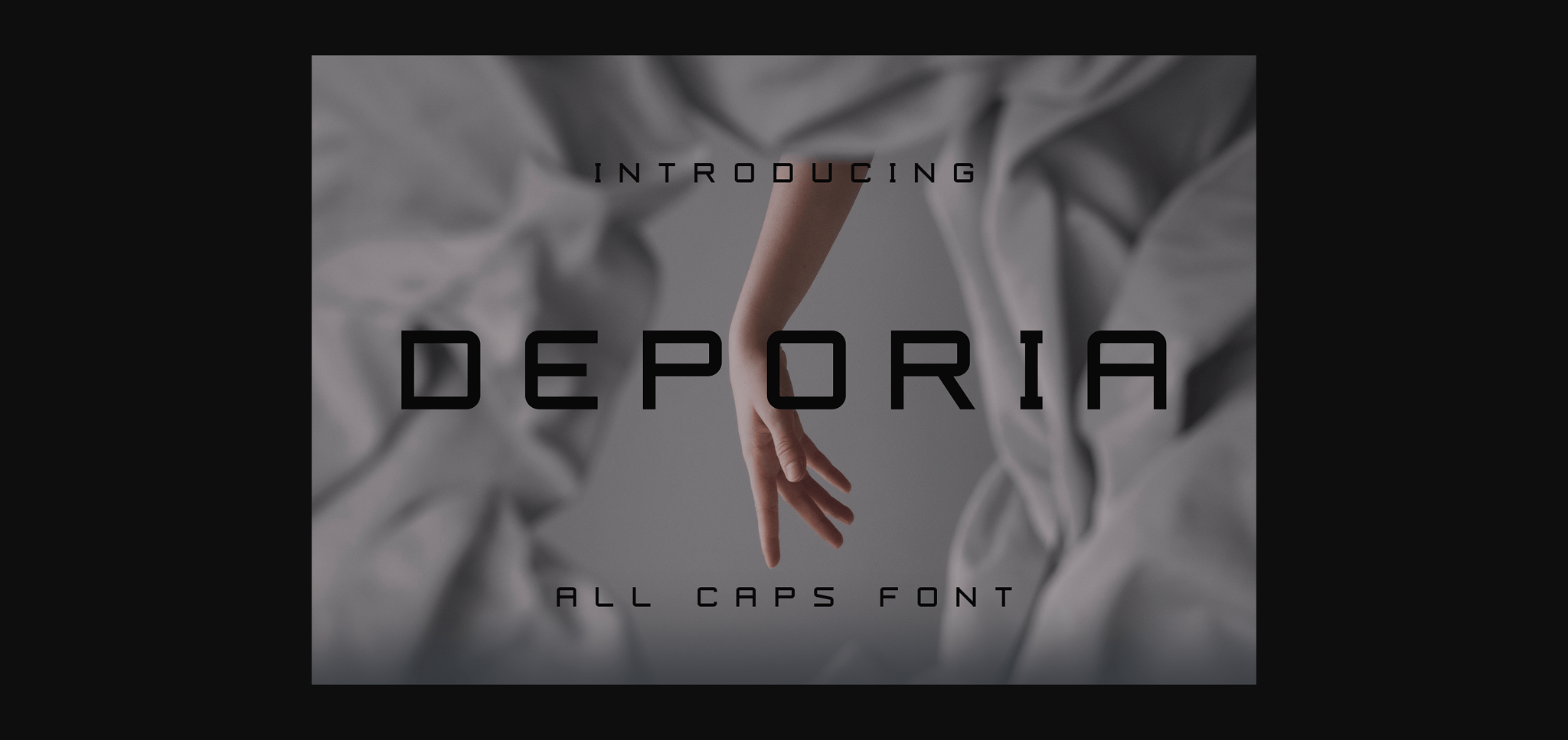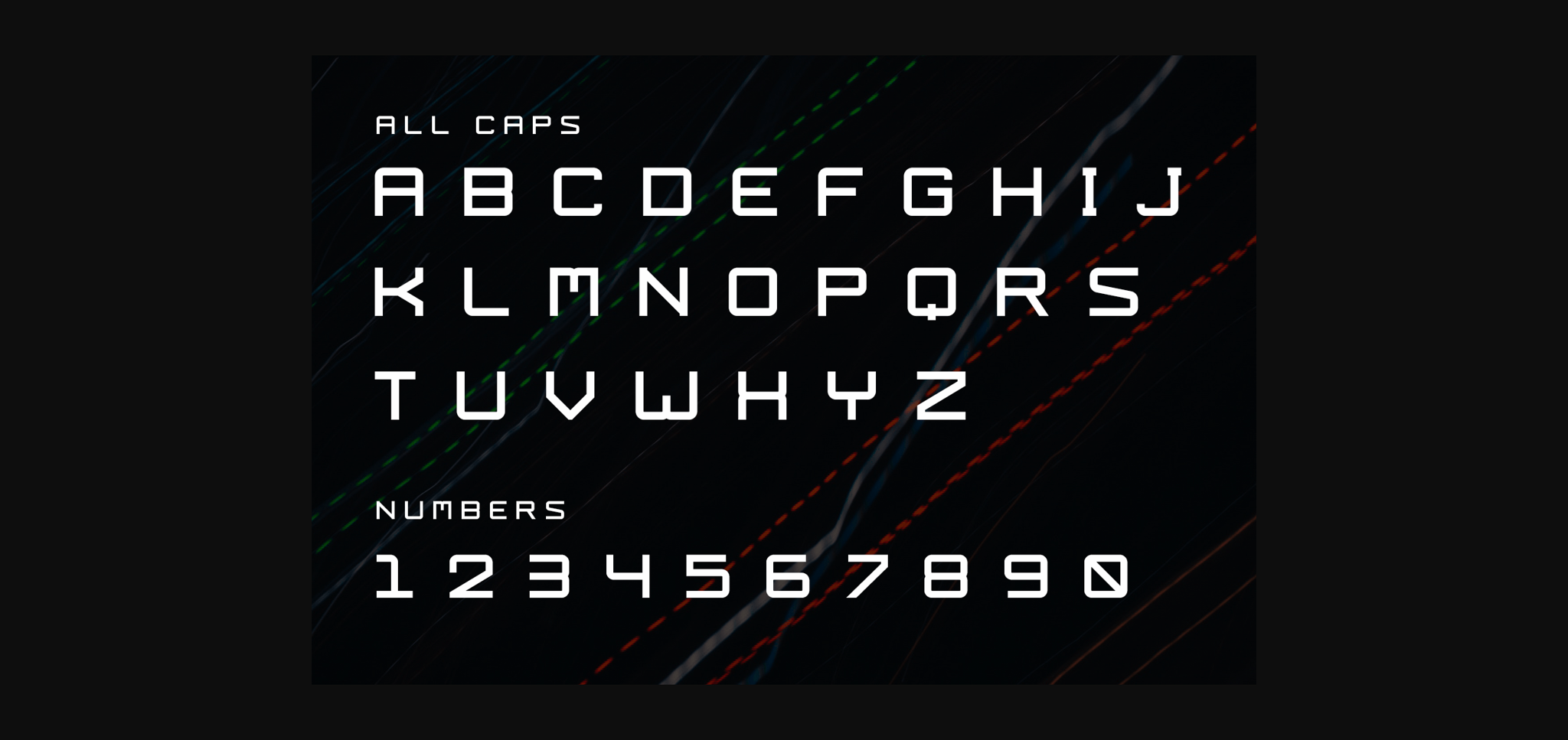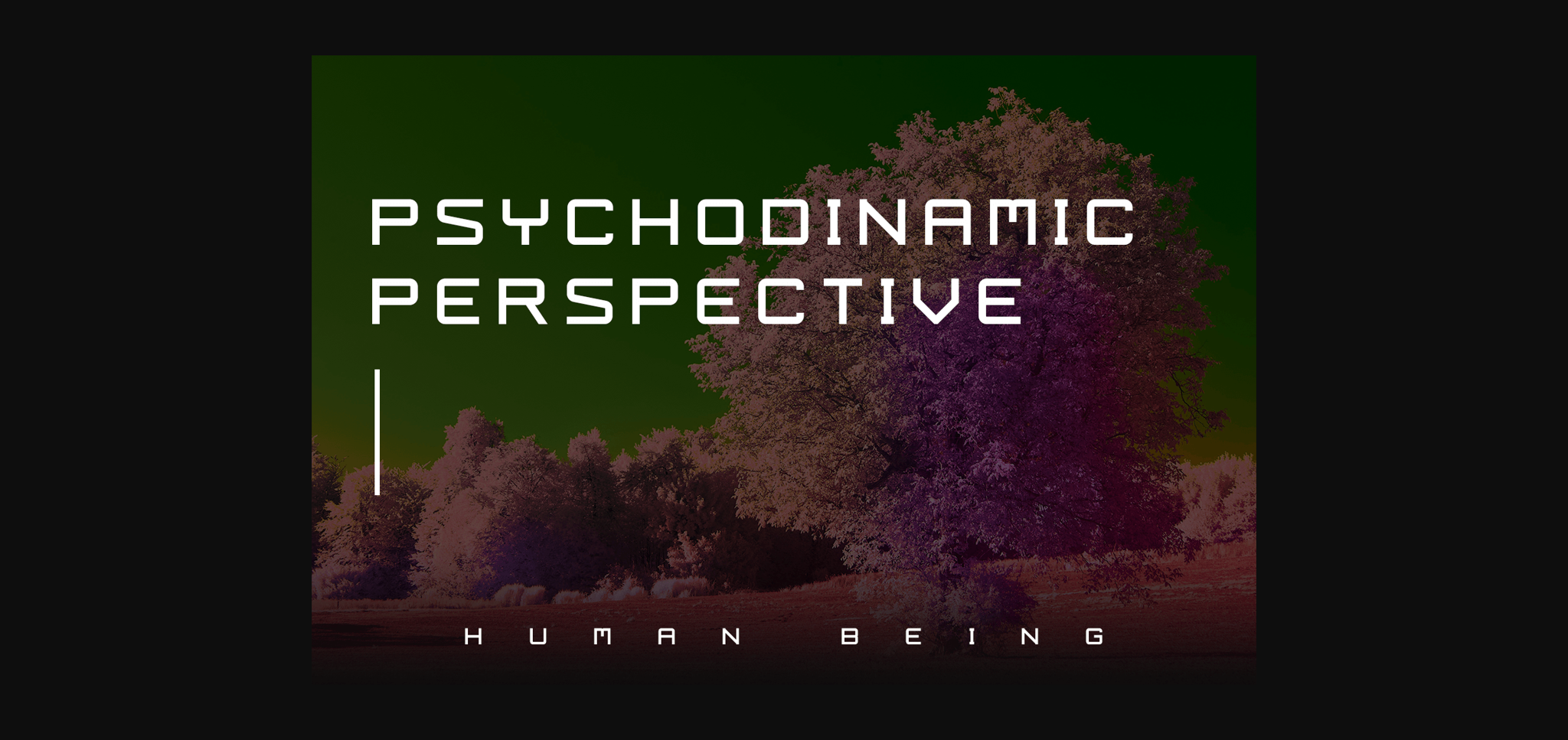
HomeSans Serif FontsDeporia Font Sans Serif Fonts Deporia Font FacebookXPinterestWhatsApp 1 of 5 ... Deporia Font Poster 2... Deporia Font Poster 3... Deporia Font Poster 4... Deporia Font Poster 5... About Deporia Font Deporia is a cool and modern sans serif font. Contemporary and fresh, this font has the potential to elevate any creation! DOWNLOAD NOW People also explored Vintage Crust Font Bruce Ornaments Collection Font Rounded Well Brielle Font Love Bubble Font Nightmare Beautiful Creature Font Photograph Font Adventure Font 389 0 TagsDeporiaDeporia Font Previous articleDorxy FontNext articleBagros Font LEAVE A REPLY Cancel reply Comment: Please enter your comment! Name:* Please enter your name here Email:* You have entered an incorrect email address! Please enter your email address here Website: Save my name, email, and website in this browser for the next time I comment. Personal Use Free Gdynia Personal Use Free Read more about this font Senza Bella Personal Use Free Read more about this font Romantic February Personal Use Free Read more about this font Sunflower Personal Use Free Read more about this font BLOG Free Fonts Risk: Why Free Fonts Can Be Dangerous for Designers Free Fonts Risk: Why Free Fonts Can Be Dangerous for Designers Using free fonts is a common practice in web and graphic design. However, the... Top 7 Google Fonts Alternatives for Faster and Privacy-Friendly Web Design (2025) Exploring Font Trends Modern Sans-Serif Fonts That Brands Love in 2025